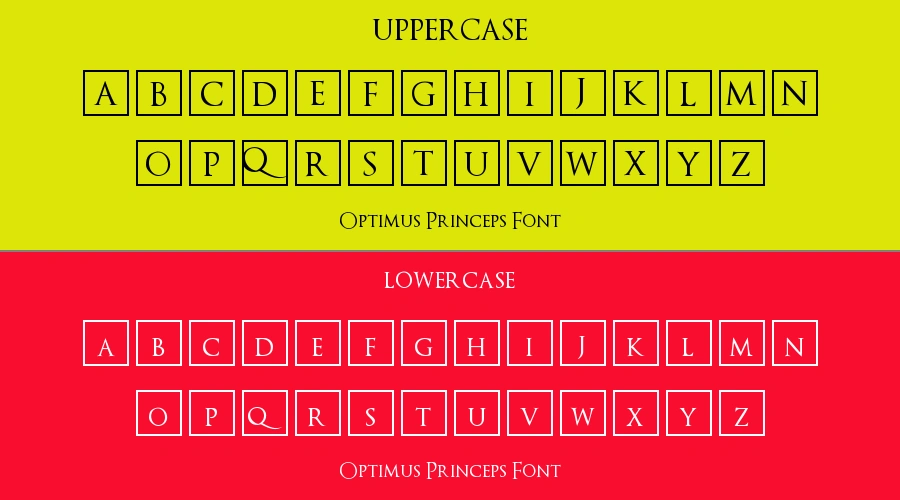
About Optimus Princeps Font
Optimus Princeps Font embodies typographic excellence through its masterful combination of harmonious shapes and typographic color. Created for medical writing, this typeface delivers exceptional refinement and artistic value across all applications. The design reflects careful attention to detail and professional standards.
Advanced capabilities include distinctive tapered strokes and versatile discretionary ligatures, giving designers creative control. When used in creative titles, Optimus Princeps Font exhibits remarkable data presentation. The harmonious balance between terminal angle and brand personality sets this typeface apart.